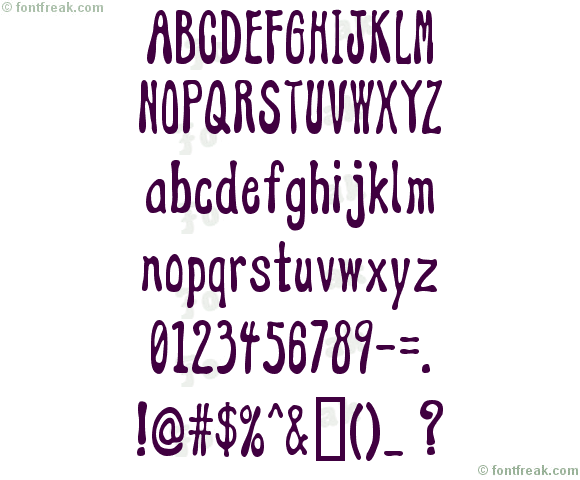
AddJazz
Add Jazz is a striking display font designed by Aoki Digital Design that seamlessly blends artistic flair with an approachable style. This freeware font exudes a unique personality, making it ideal for projects that aim to capture attention and evoke a sense of creativity. With its playful curves and distinct letterforms, Add Jazz stands out in the realm of decorative fonts. The typeface features moderate stroke weight with a balanced contrast that enhances legibility while adding a touch of elegance. The character spacing is thoughtfully crafted, ensuring that each letter flows smoothly into the next, creating a harmonious visual rhythm.
The versatility of Add Jazz makes it perfect for a variety of applications. It shines in wedding invitations, where its charming design can set a romantic tone. Additionally, this font is an excellent choice for movie posters, as it can evoke the excitement and energy of cinematic storytelling. Restaurant menus can benefit from Add Jazz's engaging style, drawing diners' eyes and enhancing the overall dining experience. Content creators and graphic designers will find this font particularly appealing for social media graphics, branding projects, and promotional materials, as it conveys a sense of fun and creativity.
The target audience for Add Jazz includes graphic designers, small business owners, and content creators who are looking to make their work stand out with a distinctive typeface. By offering a fresh and lively aesthetic, Add Jazz allows users to express their unique vision and capture the essence of their brand.